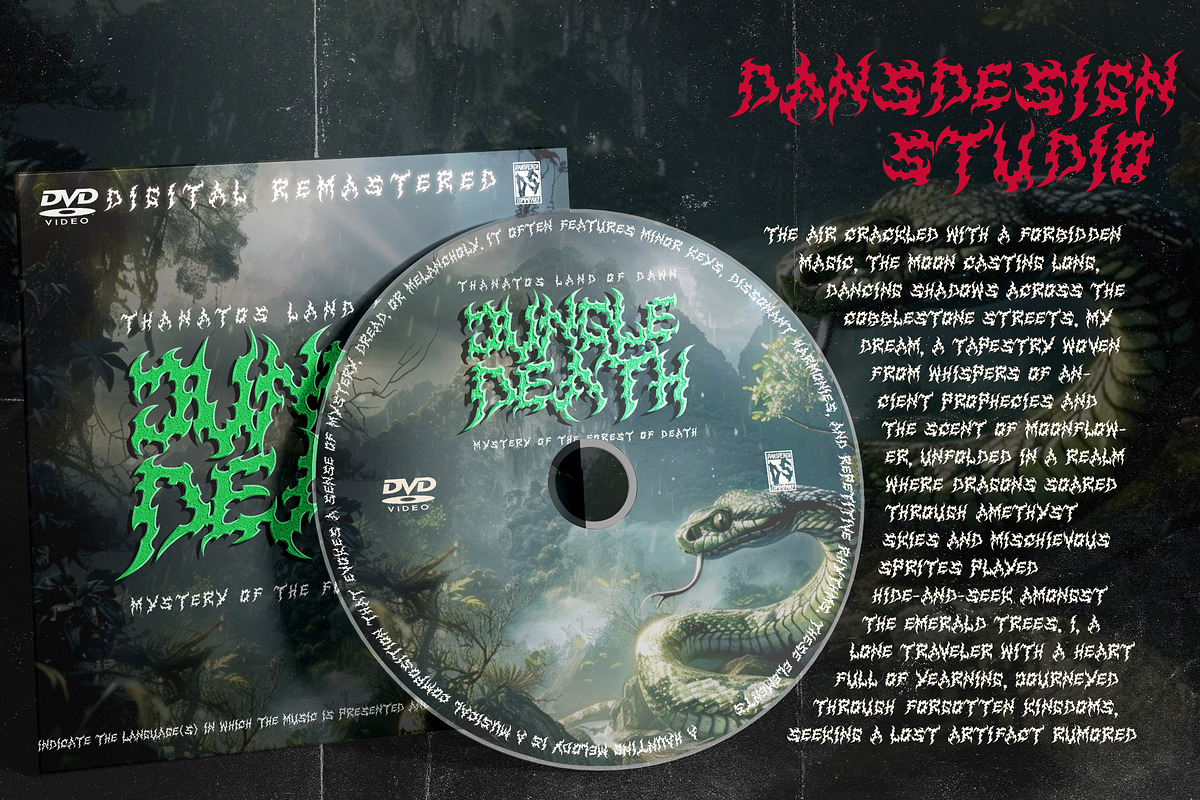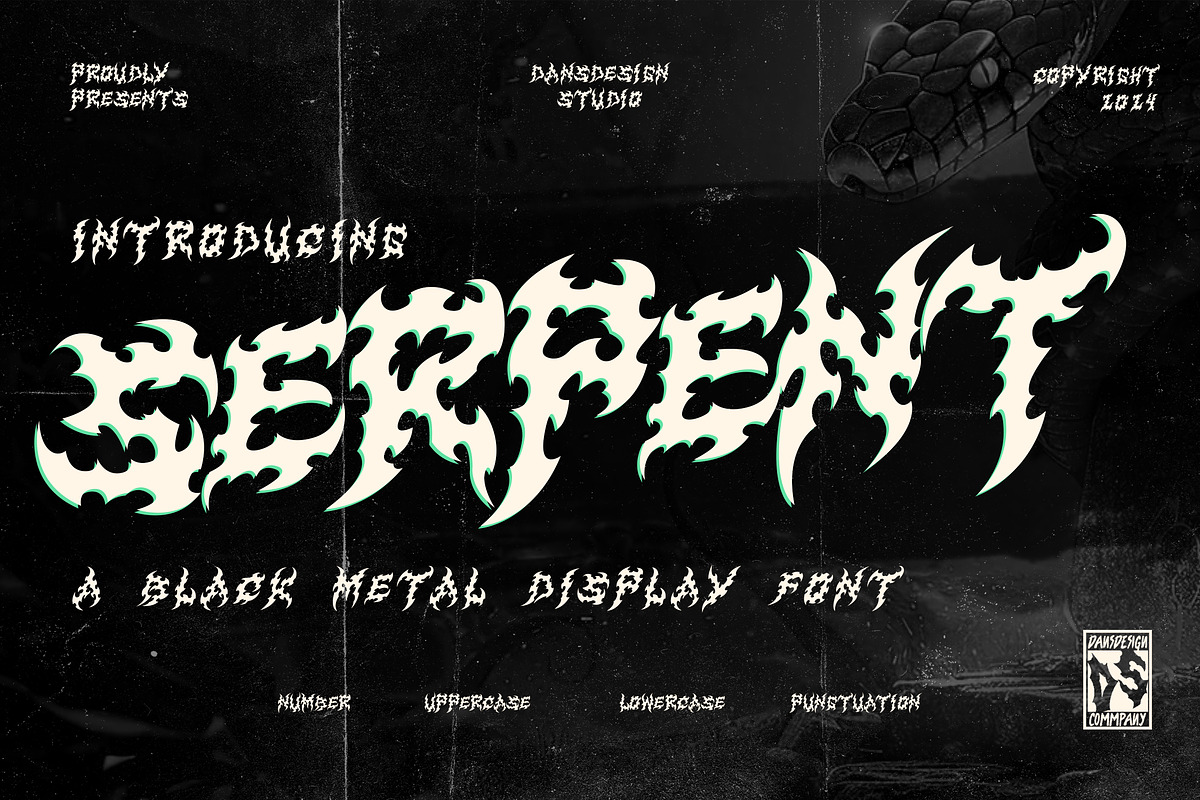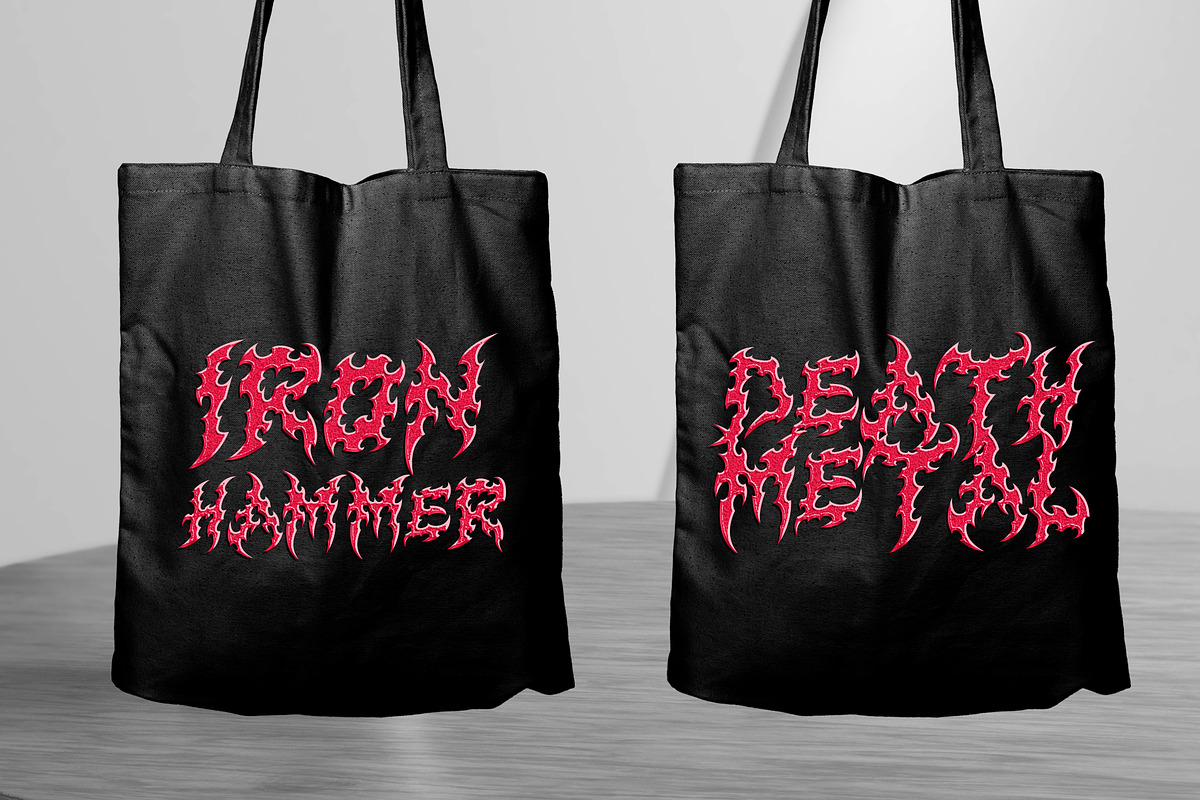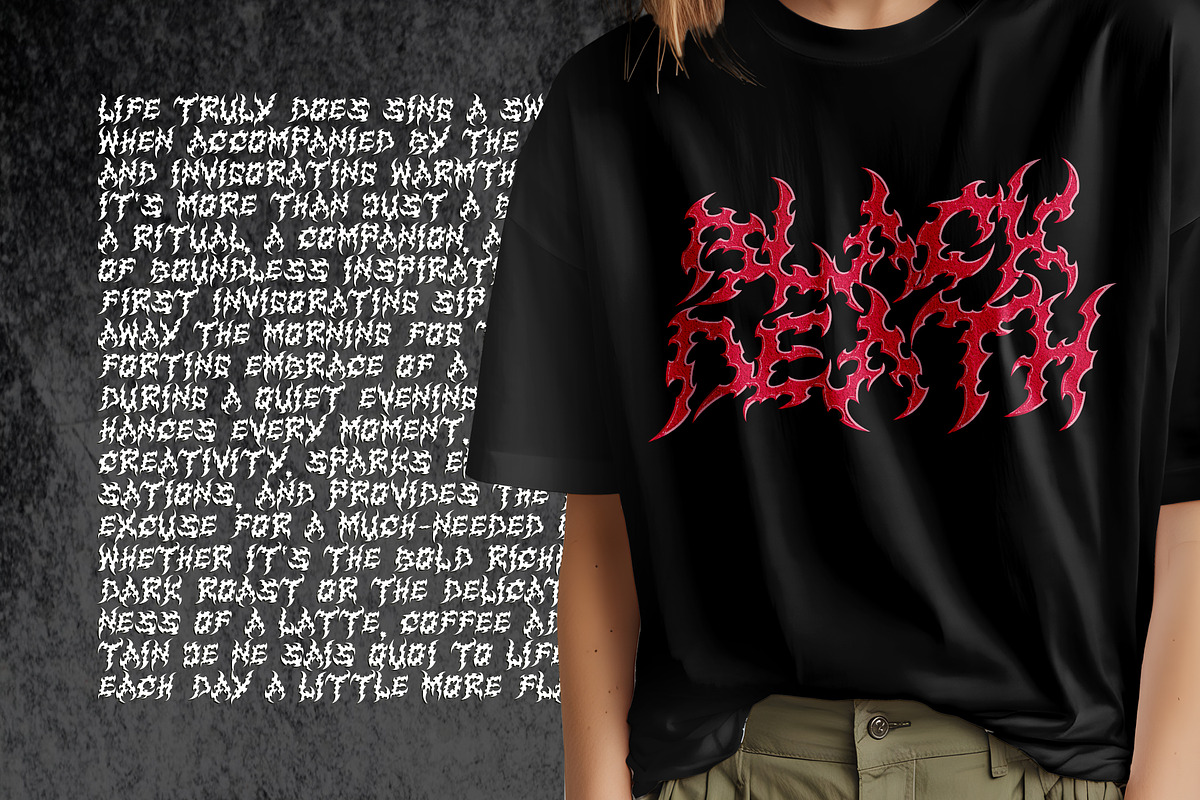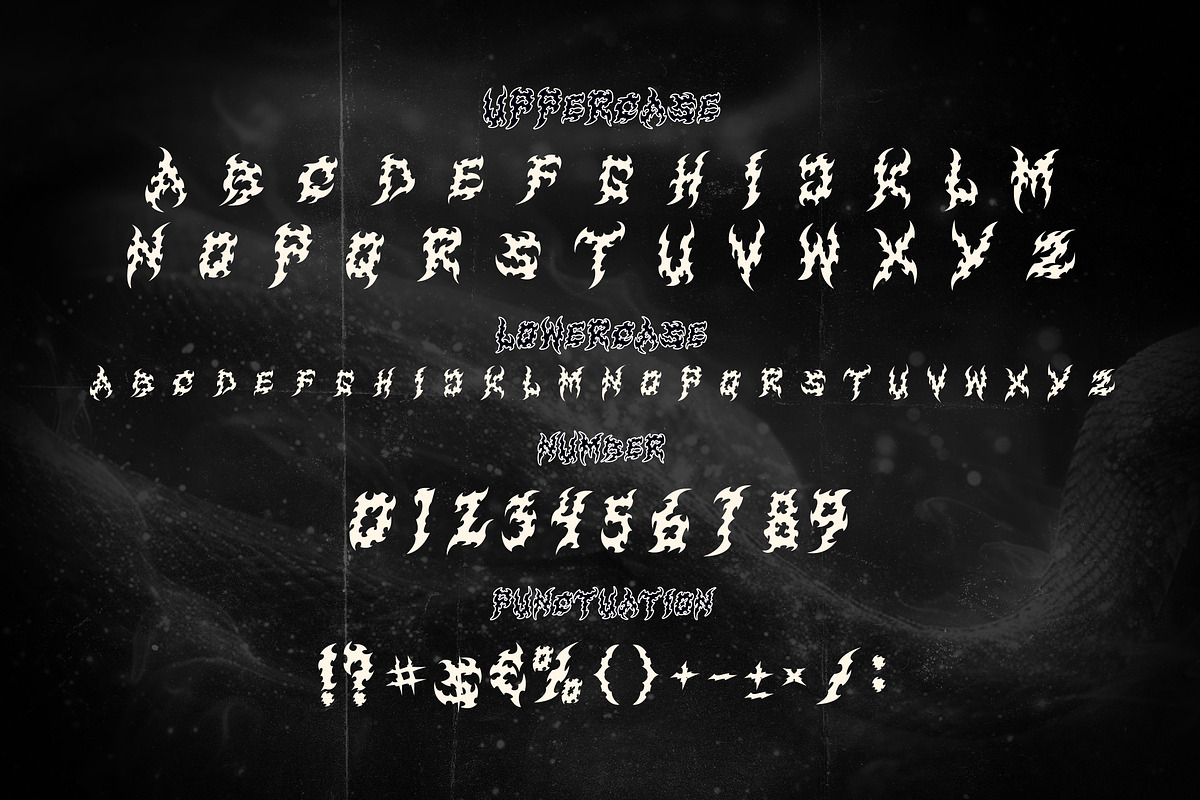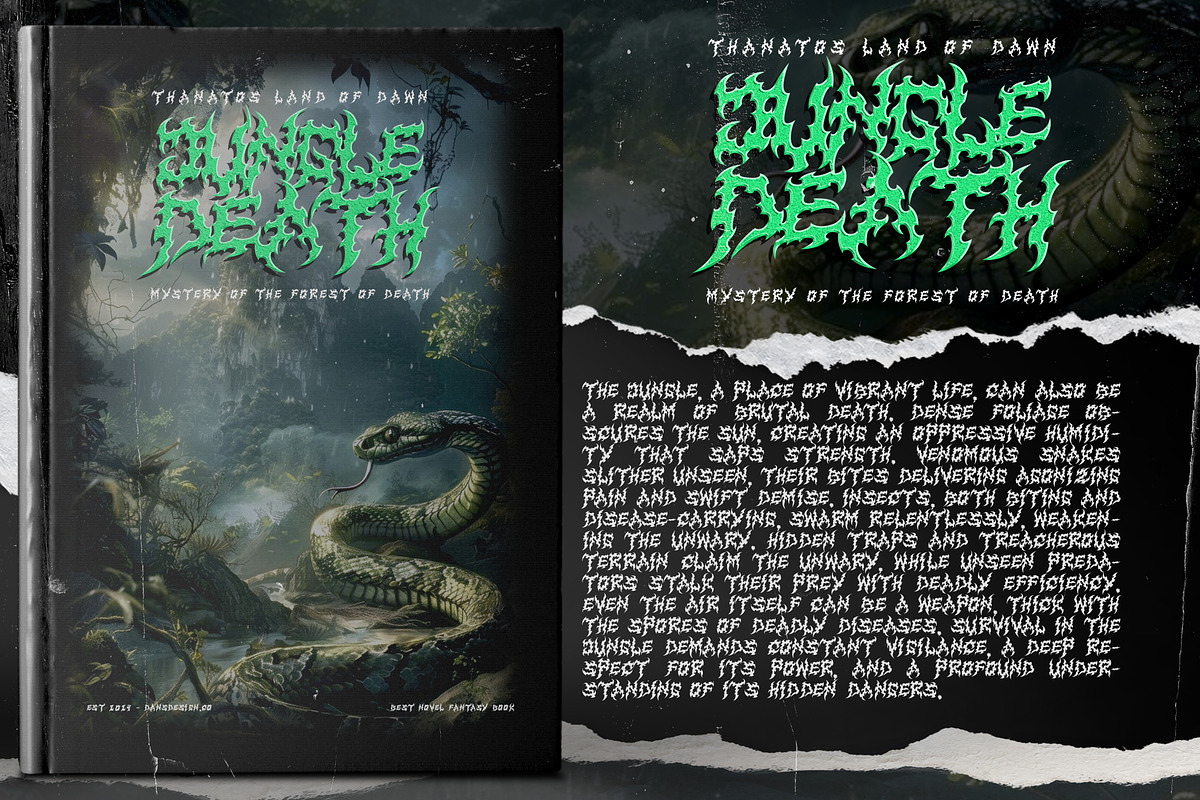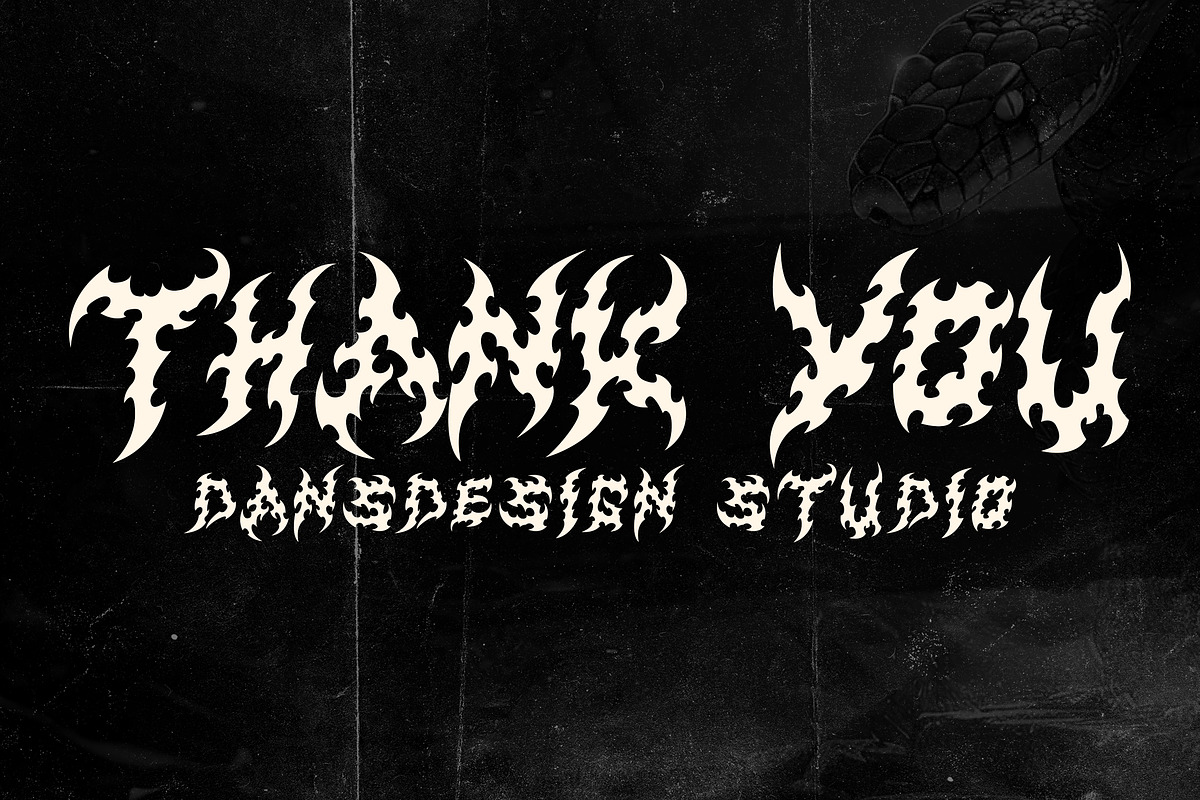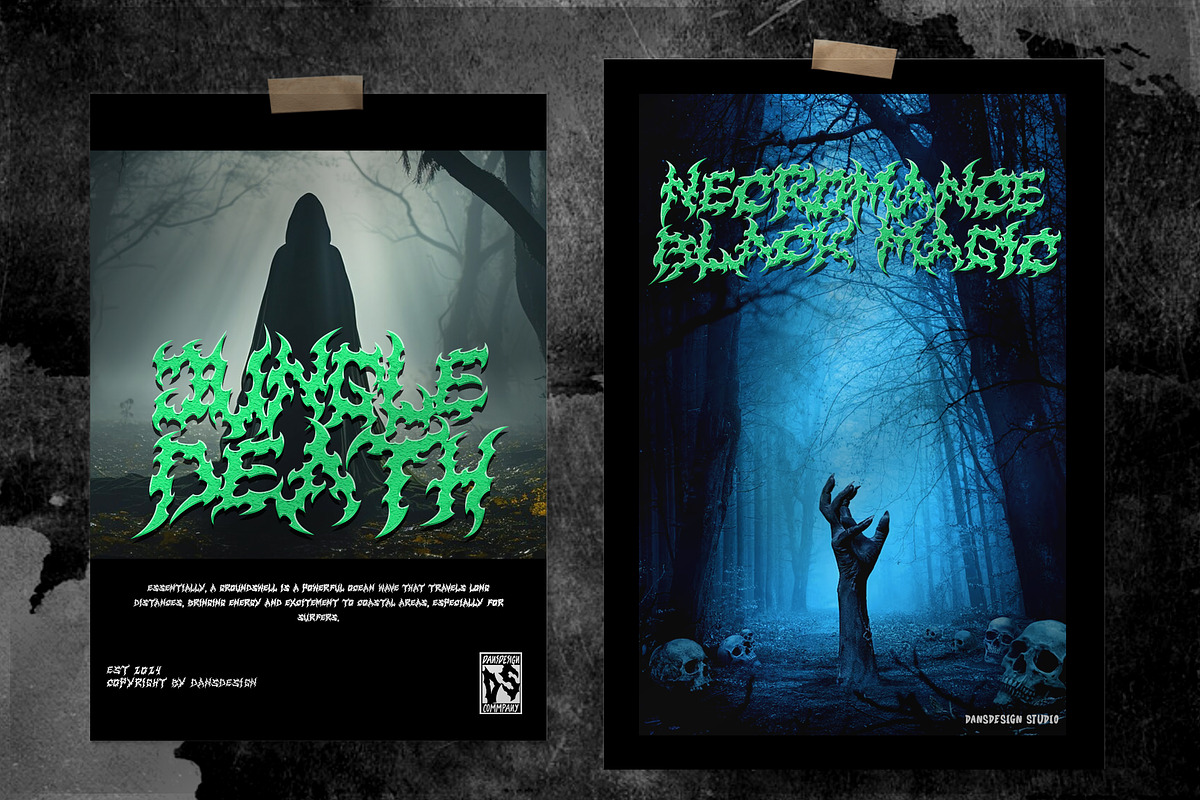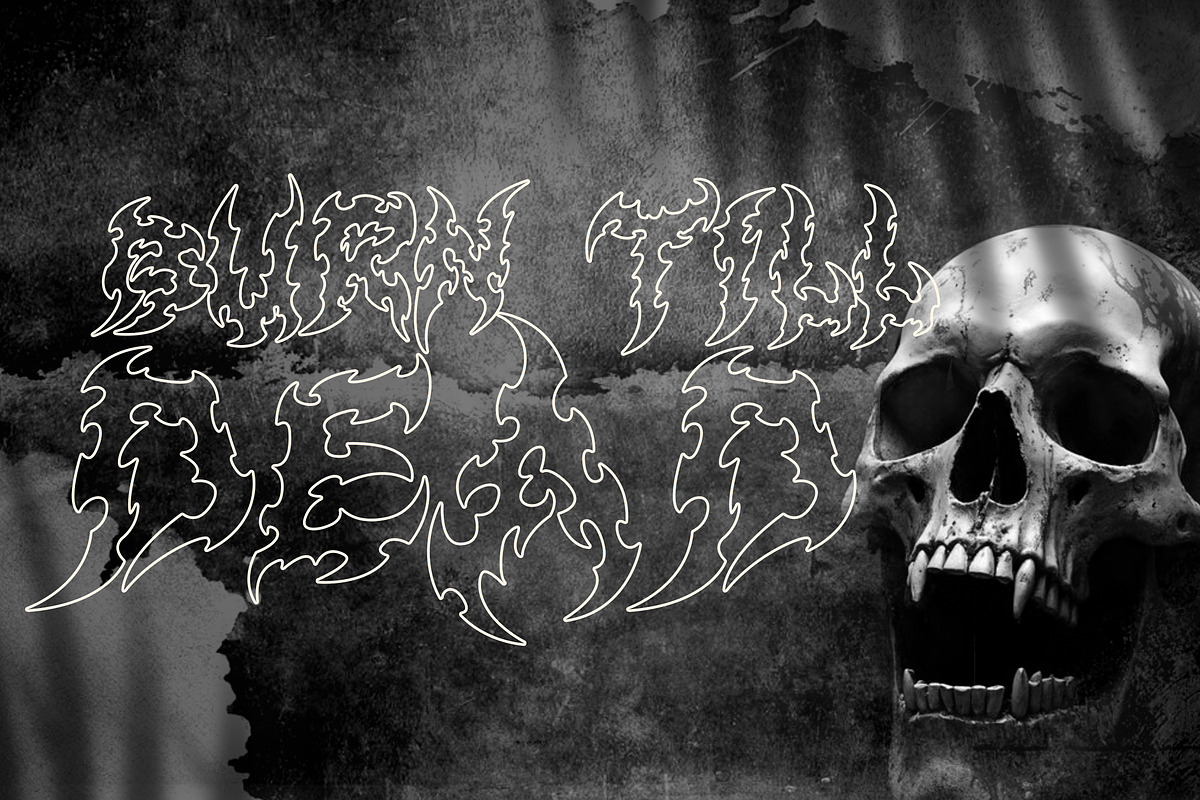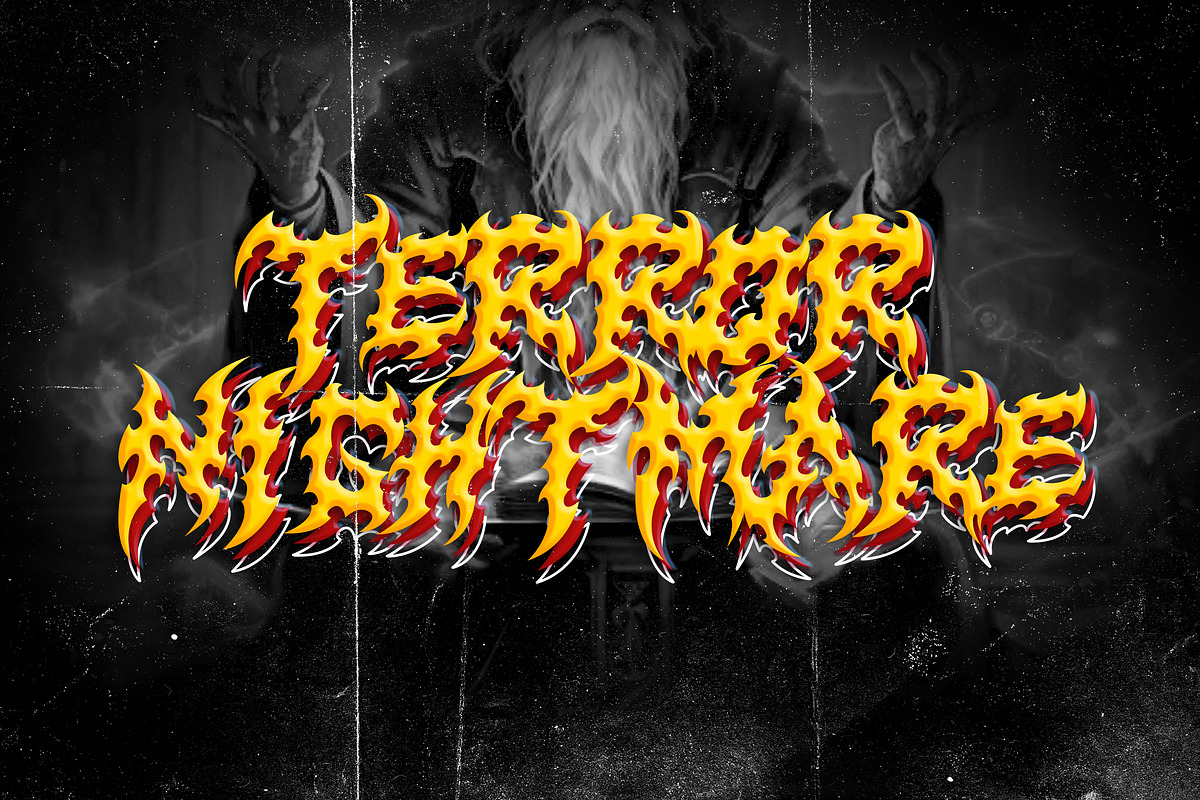
Serpent Horror Metal Gothic Display
Serpent Horror Metal Gothic Display Font
Serpent Horror Metal Gothic Font a distinct, highly detailed, and chic Blackletter font. It would make a great choice for exquisite retro-urban designs, tattoo business branding, logos, vintage designs, movie, poster, apparel, illustration, and more.